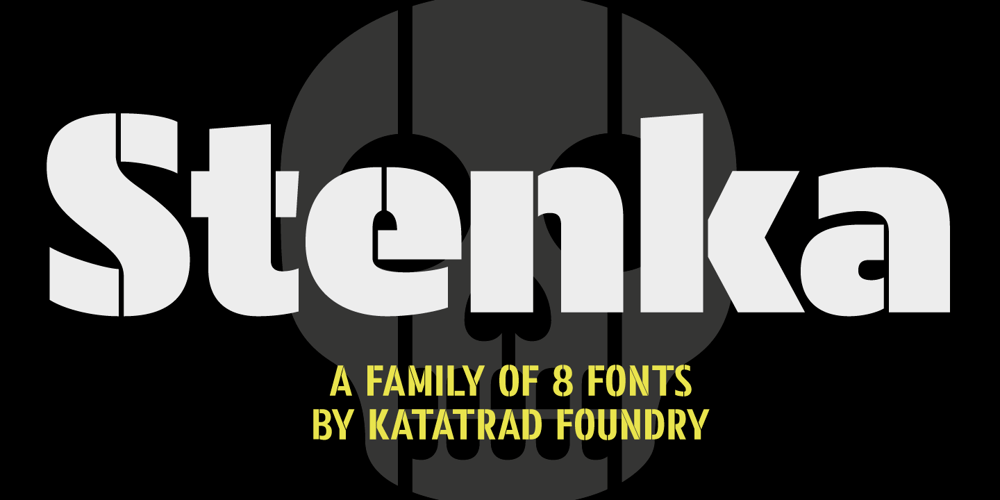
Stenka
Stenka font
Stenka Font Family was designed by Thanarat Vachiruckul and published by Katatrad. Stenka contains 8 styles and family package options. Stenka is a sans-serif stencil typeface that stand for display typeface to use in any typographic situation. It has his own unique style in expressed perfect condensed forms. Stenka is an ideal font family for display, print, corporate identity, mobile devices, magazine cover, signage, and web design creation, with a set of ligatures and alternative characters for your design in any layout. The family has 4 weights ranging from Light to Black and their italic.